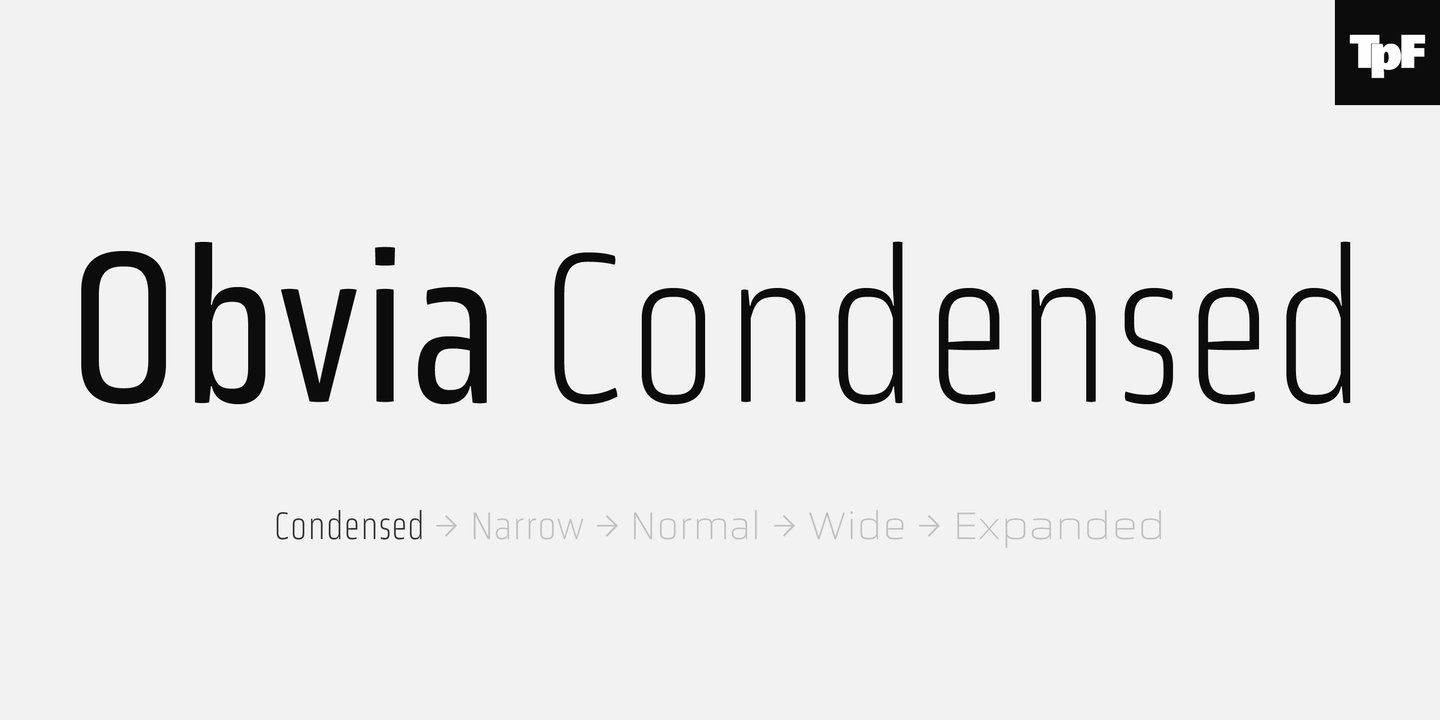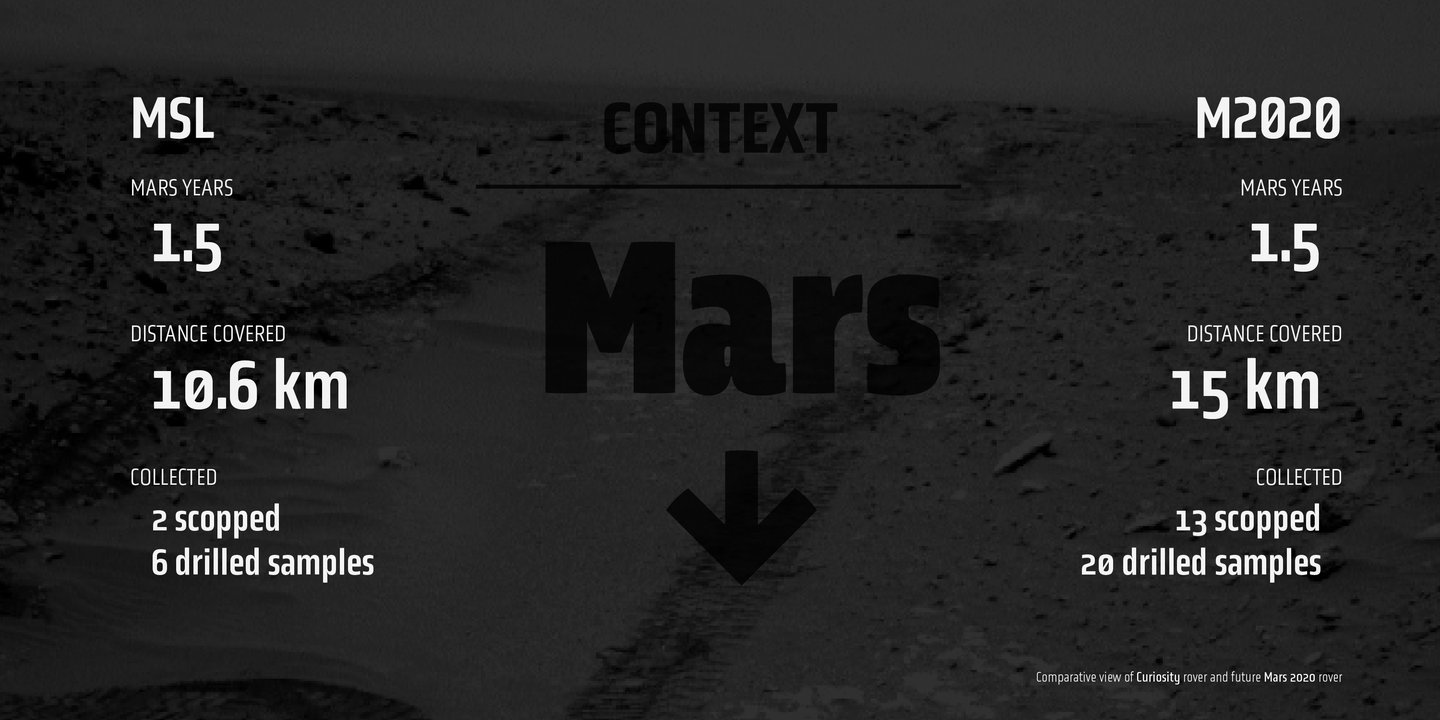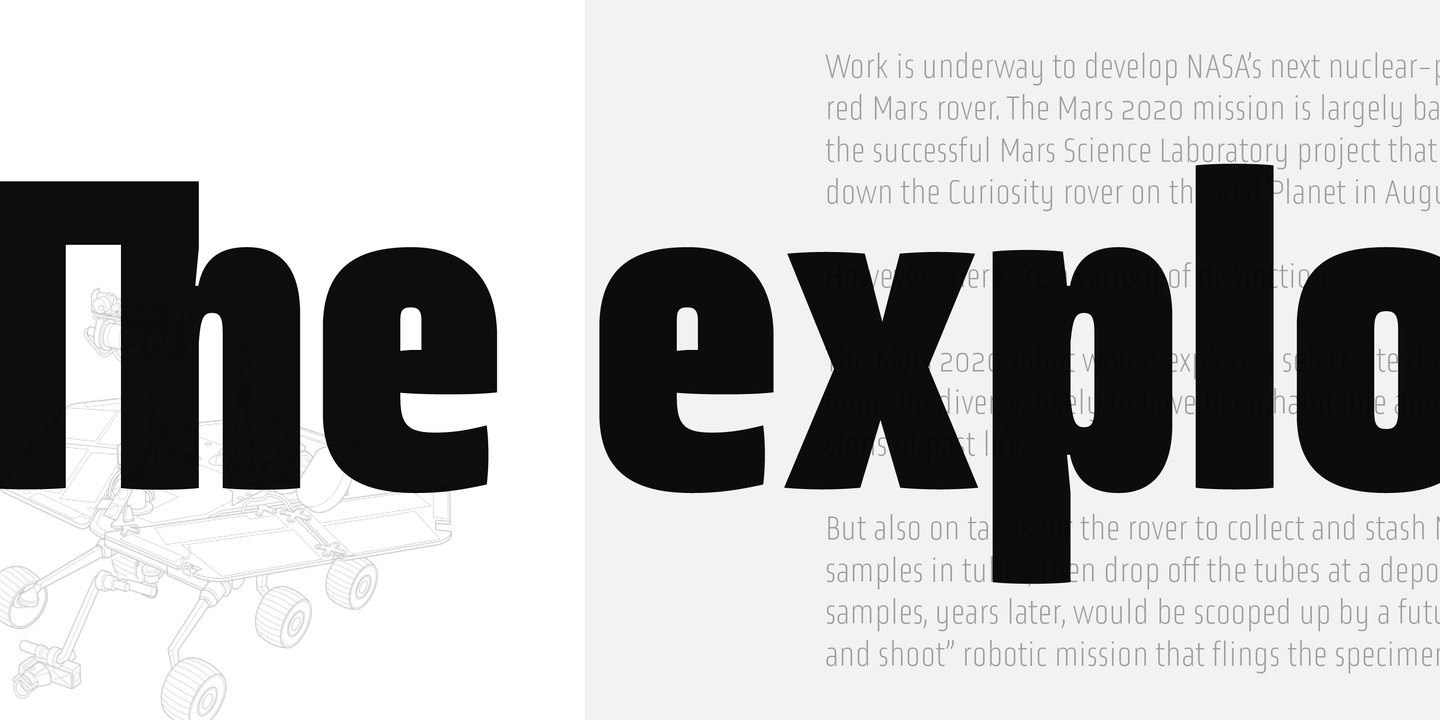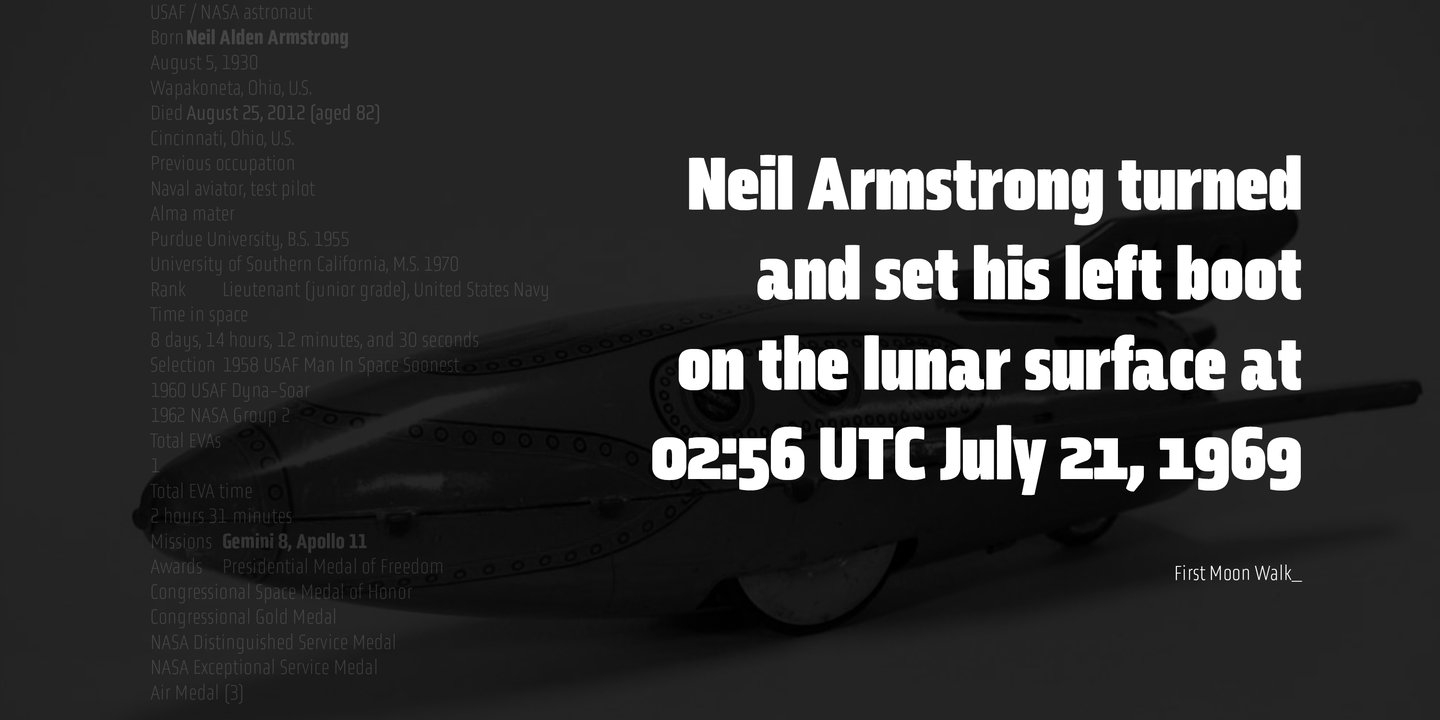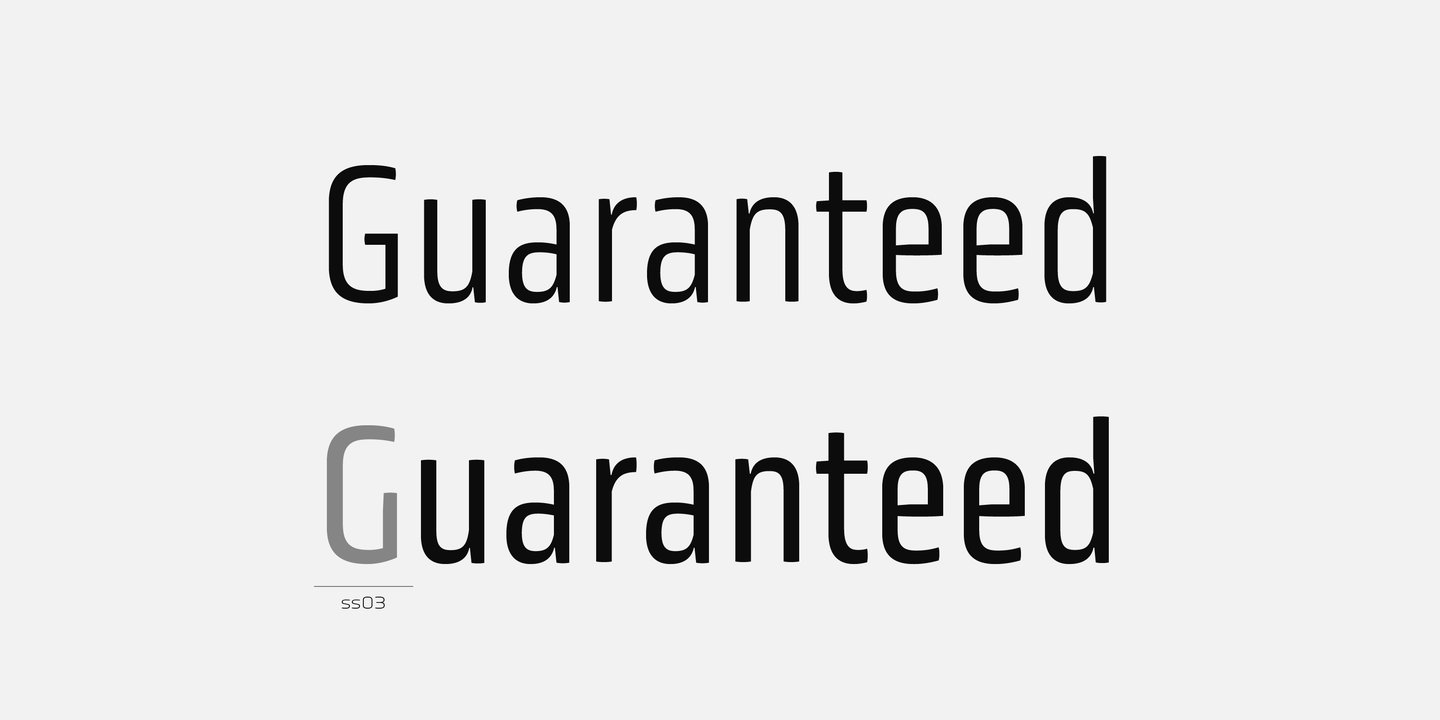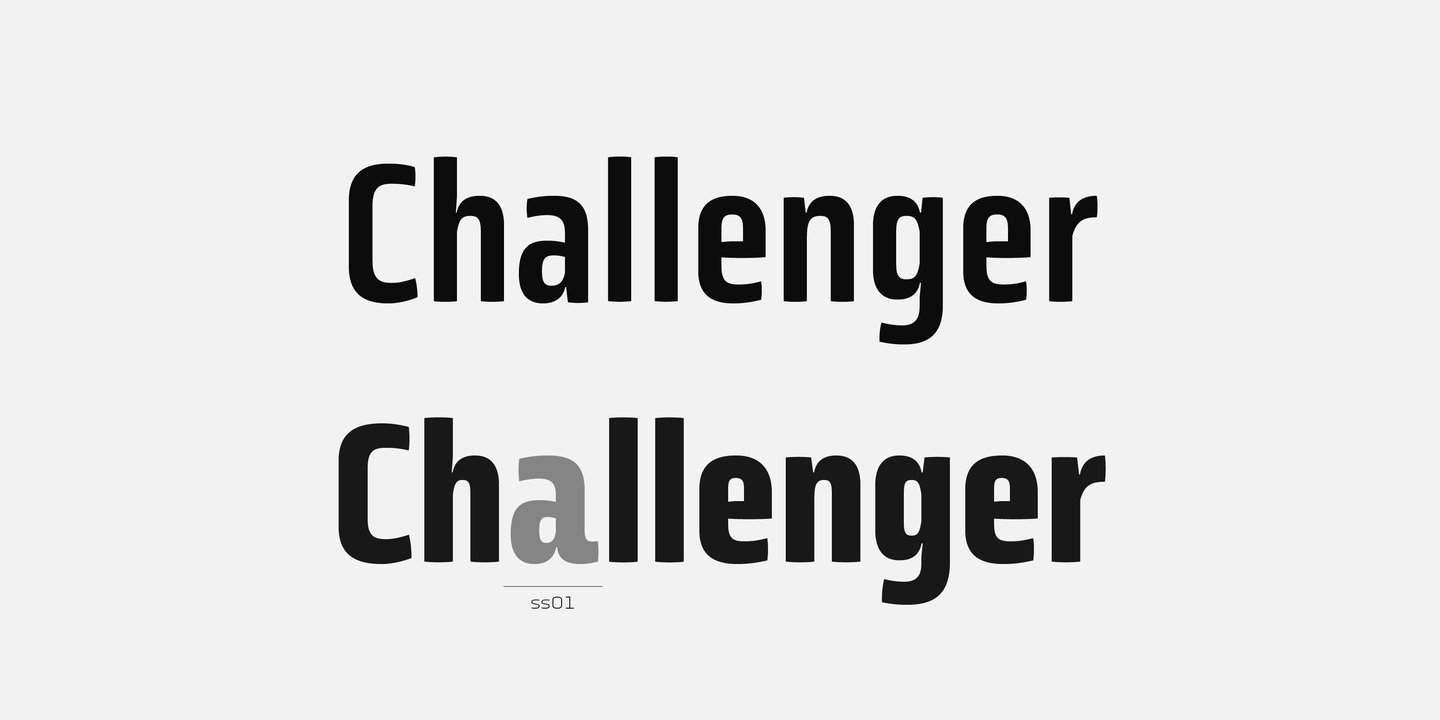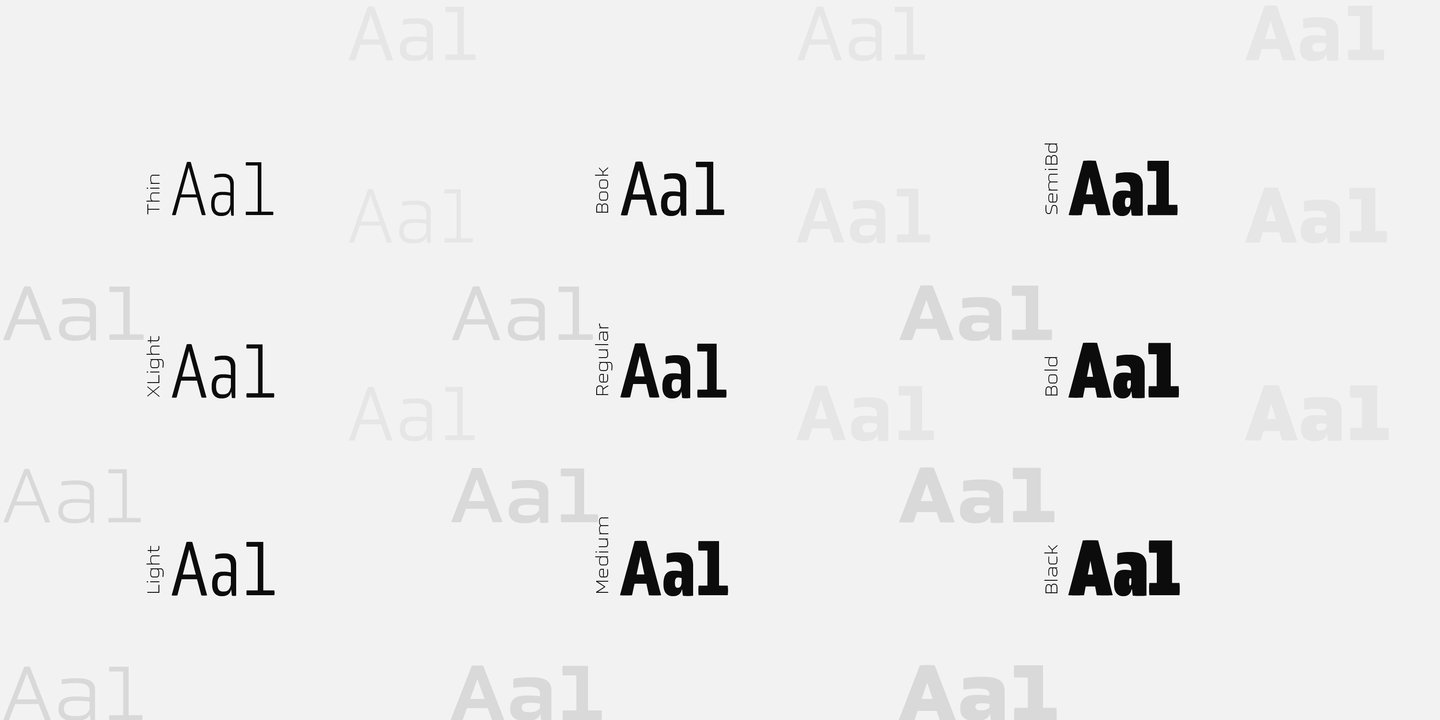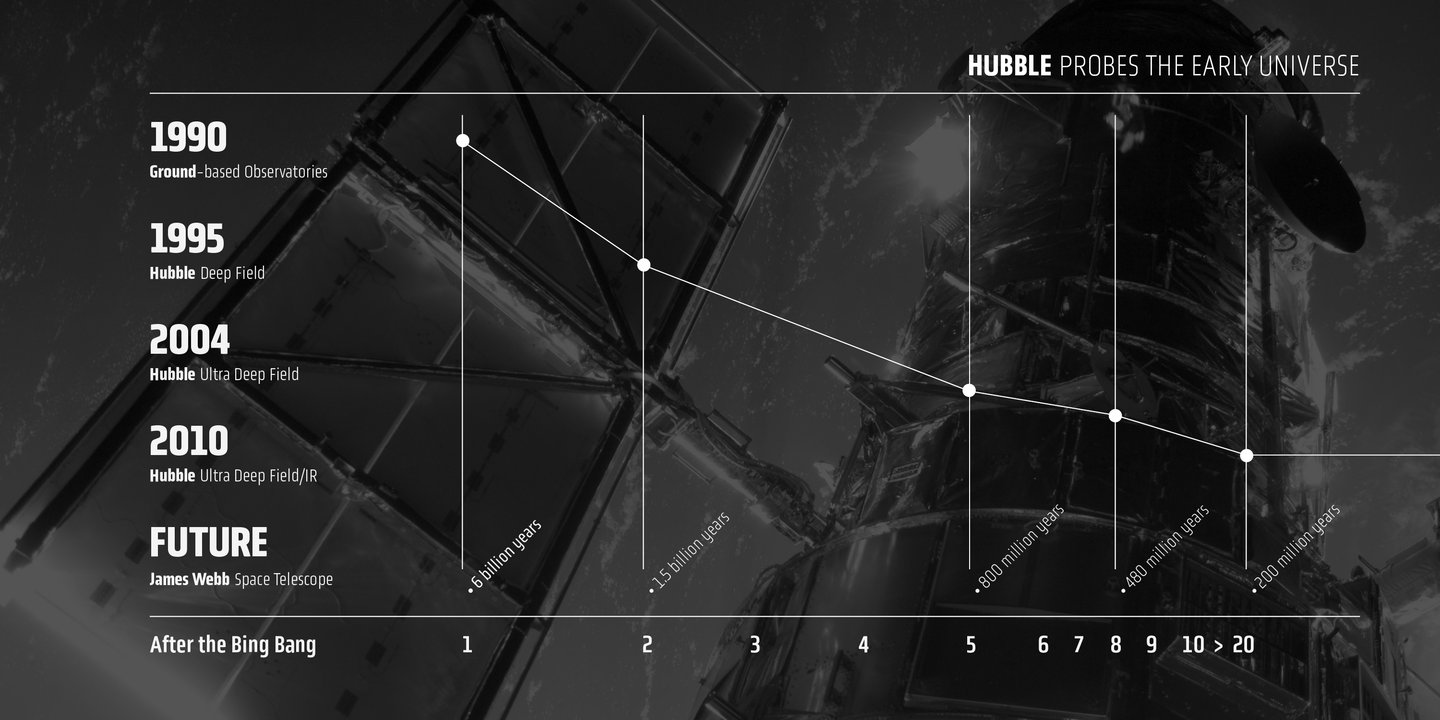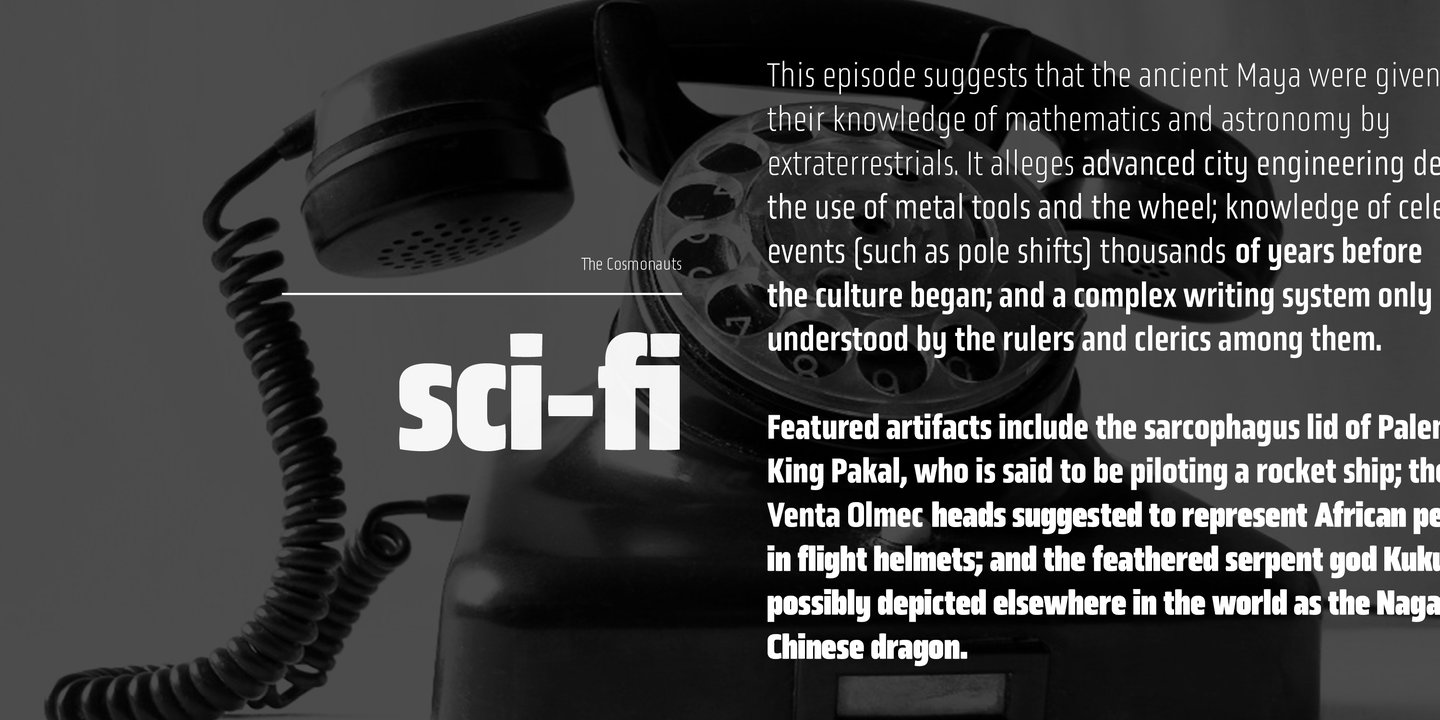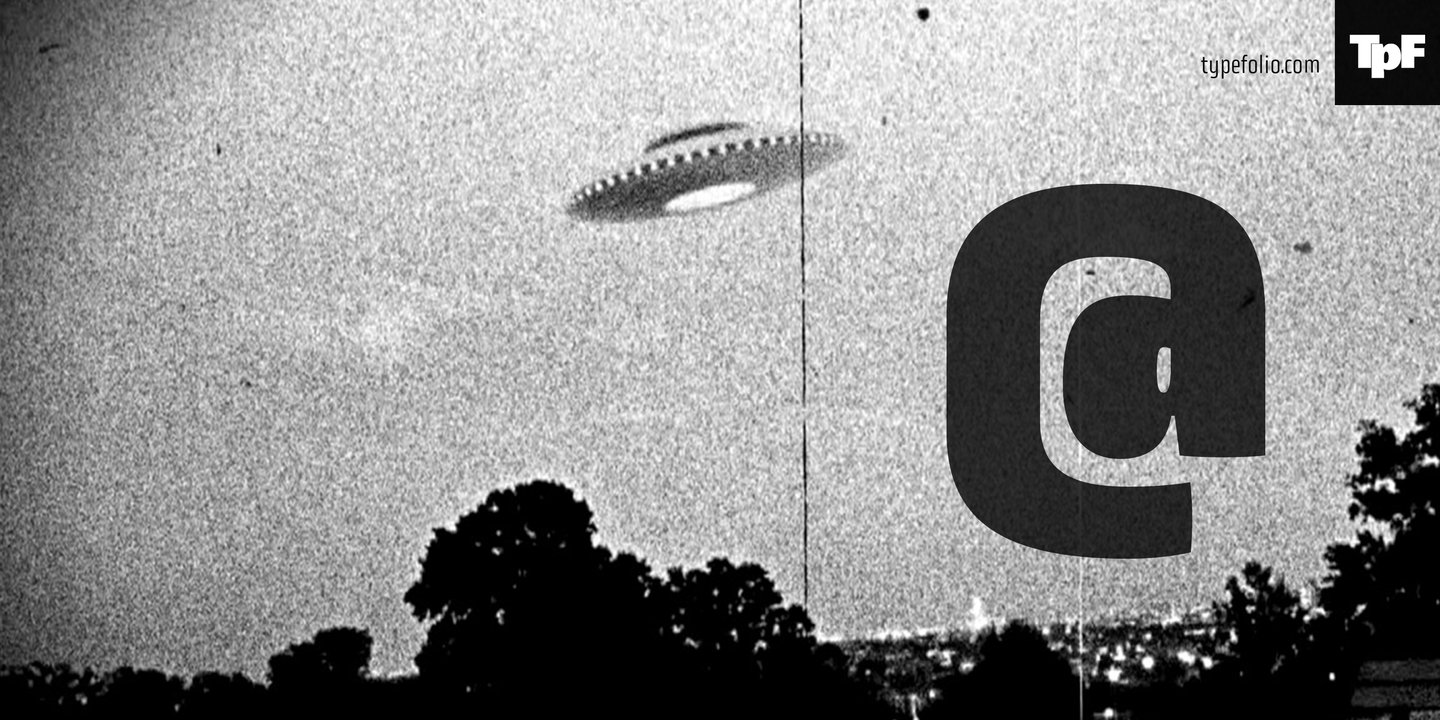
'Obvia' appeared as a result of direct observation on typefaces classified as geometric and the plan to explore for the first time width axes Expanded, Wide, Normal, Narrow and Condensed The idea behind 'Obvia's design was to create a distancing from geometrically pure shapes, in this case, square shapes. Then some details were added, such as subtle inktraps, concave endings of the stems and carefully drawn alternate characters, giving a 'geohumanist' tone to the font. This first family of 'Obvia' has 9 weights ranging from Thin to Black, delivering a strong typographic identity, from the paper to the pixel.